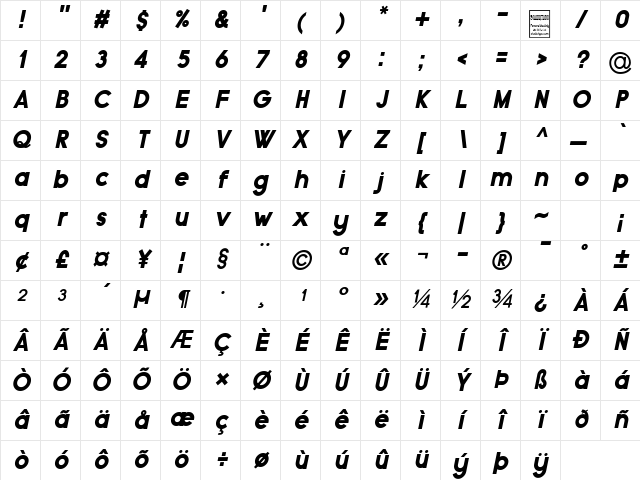
Complete Typo Grotesk Black Italic glyph index. Displaying only characters natively supported by Typo Grotesk Black Italic font.
Typo Grotesk Black takes a clean, functional approach - its unadorned letterforms prioritise legibility and work reliably across screen and print environments. The slanted form adds forward momentum and visual energy.
Font Pairing: Works well alongside a characterful serif or display font that can carry the expressive load while Typo Grotesk Black handles the functional copy.
Pro Tip: Use Typo Grotesk Black for UI labels, navigation, and short-form body copy where clean legibility is the priority.